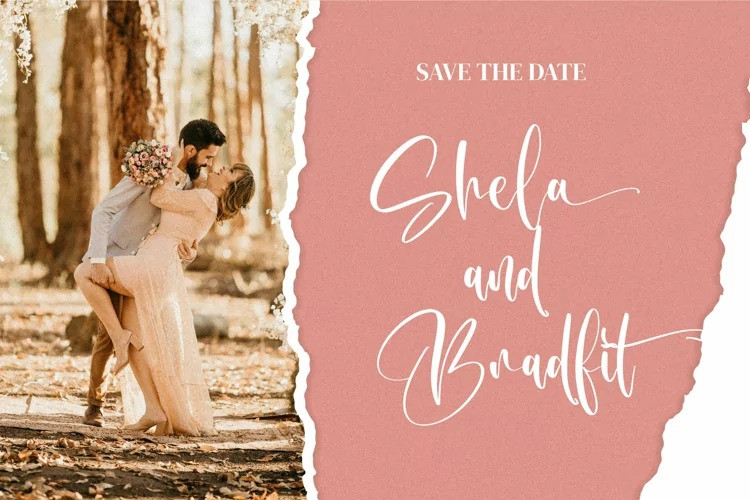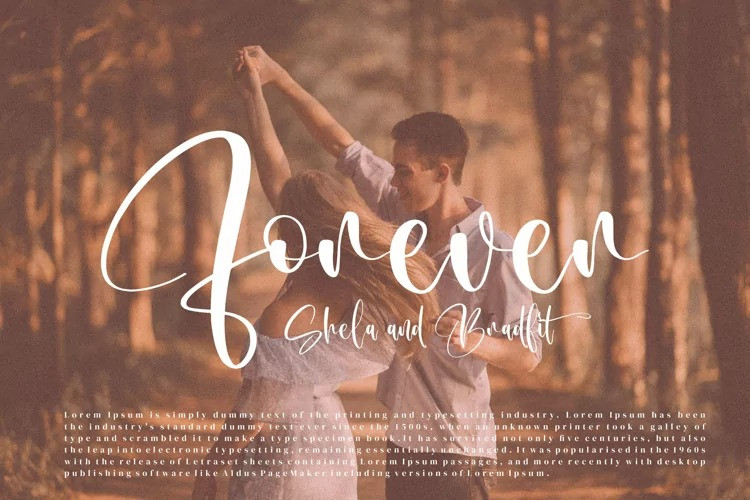
Himawari Swim Font
Himawari swim– Modern Script Font, from Integritype Studio, is a premium Modern Script Font, suitable for any projects such as: logos, branding projects, homeware designs, product packaging, mugs, quotes, posters, shopping bags, t-shirts, book covers, name card, invitation cards, greeting cards, label, photography, watermark, special events, and all your other luxury projects that need a premium signature taste.